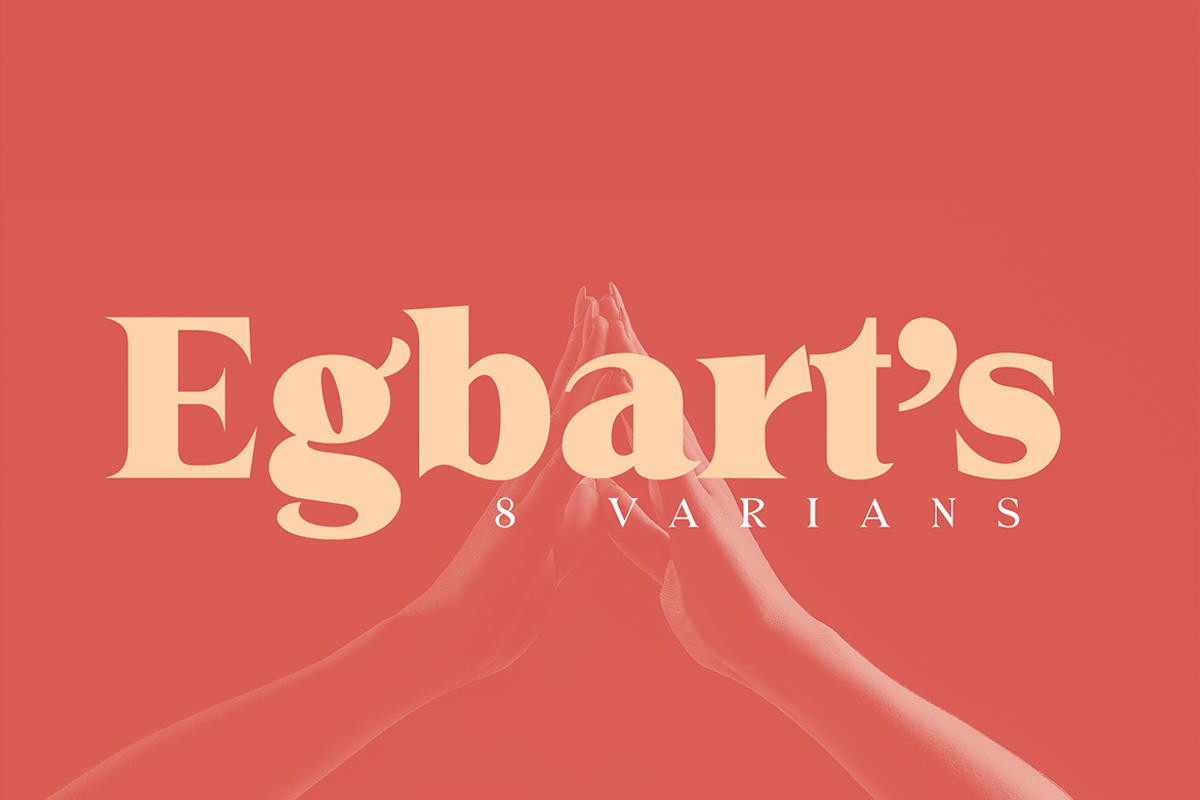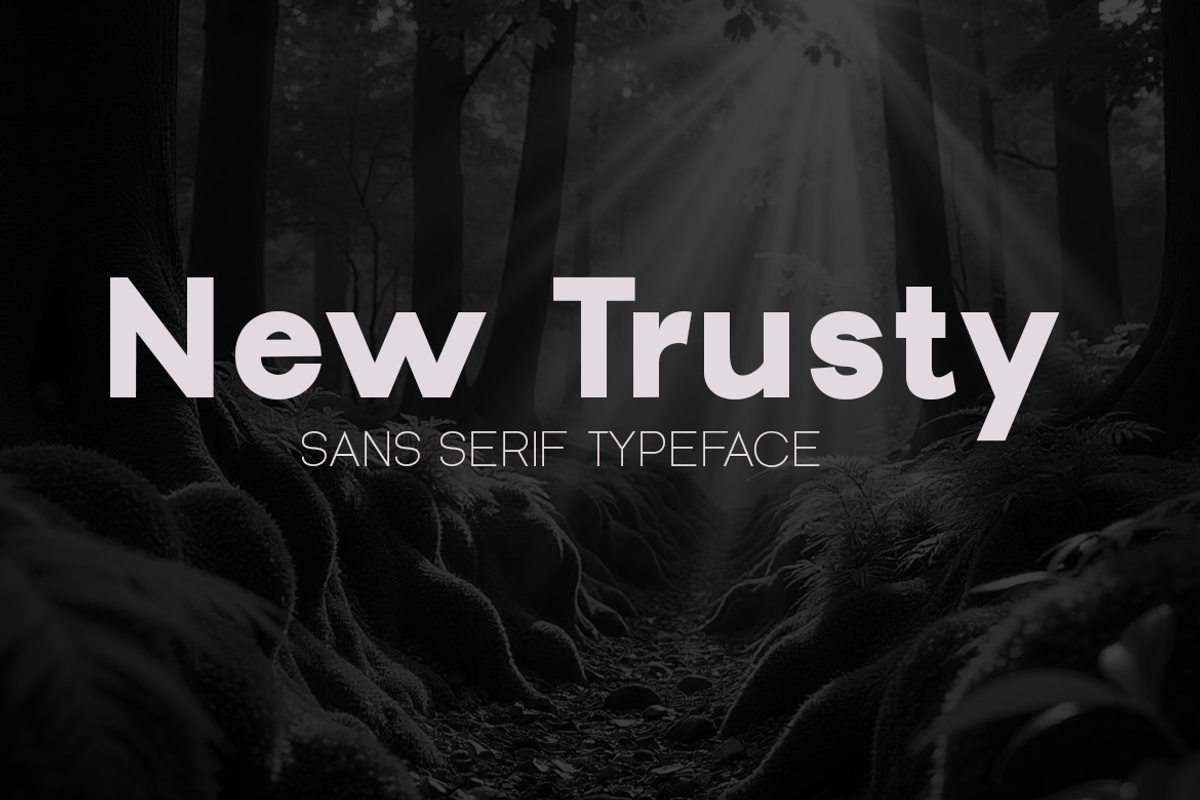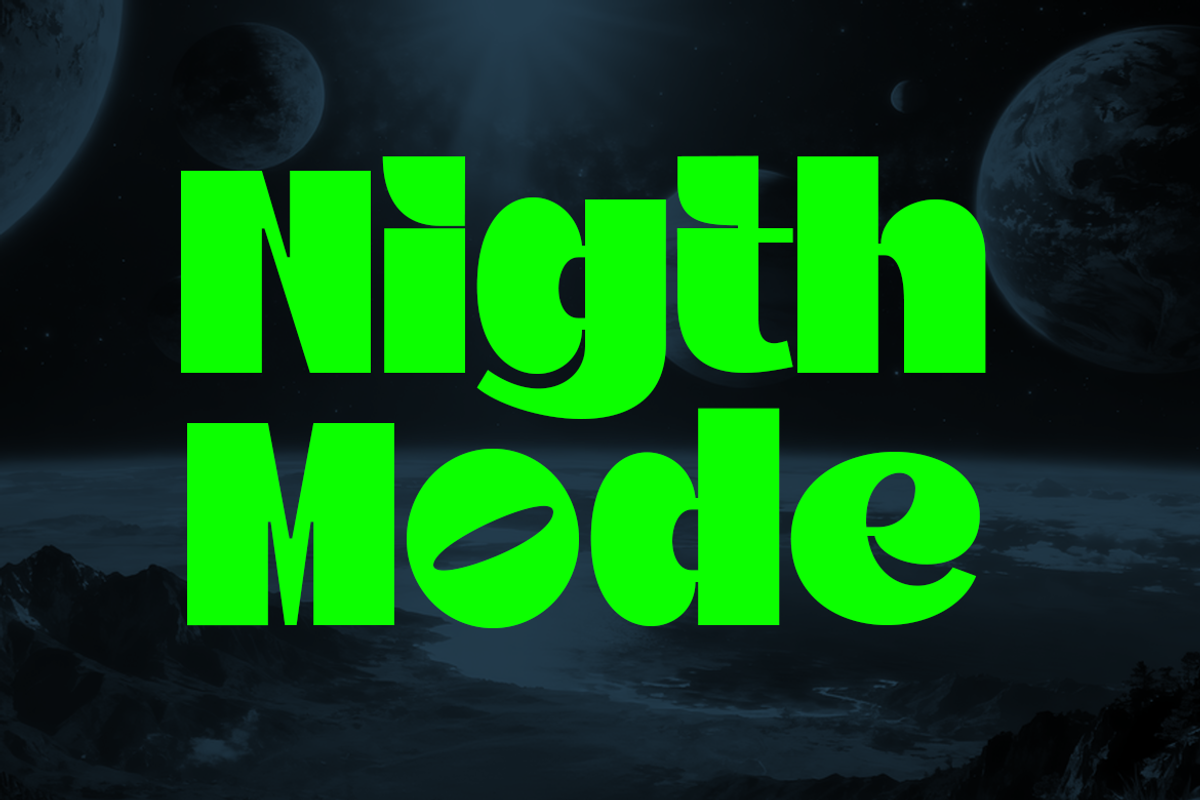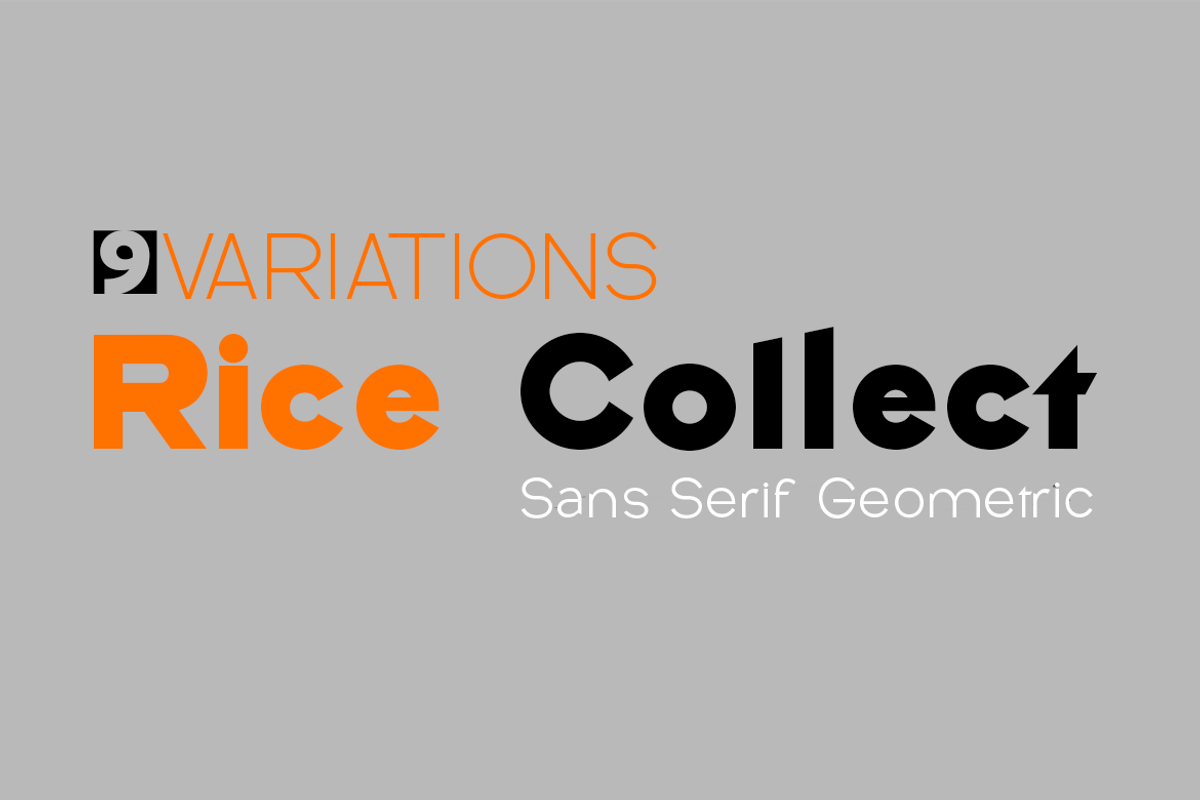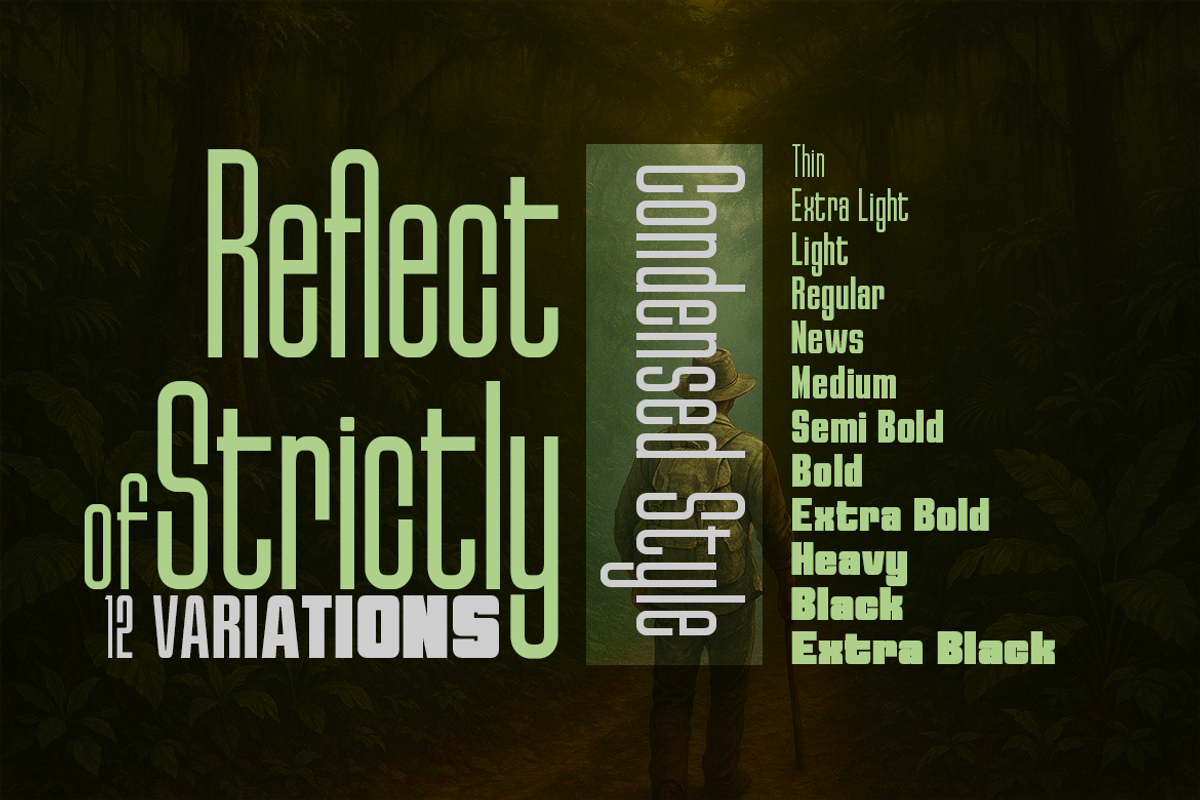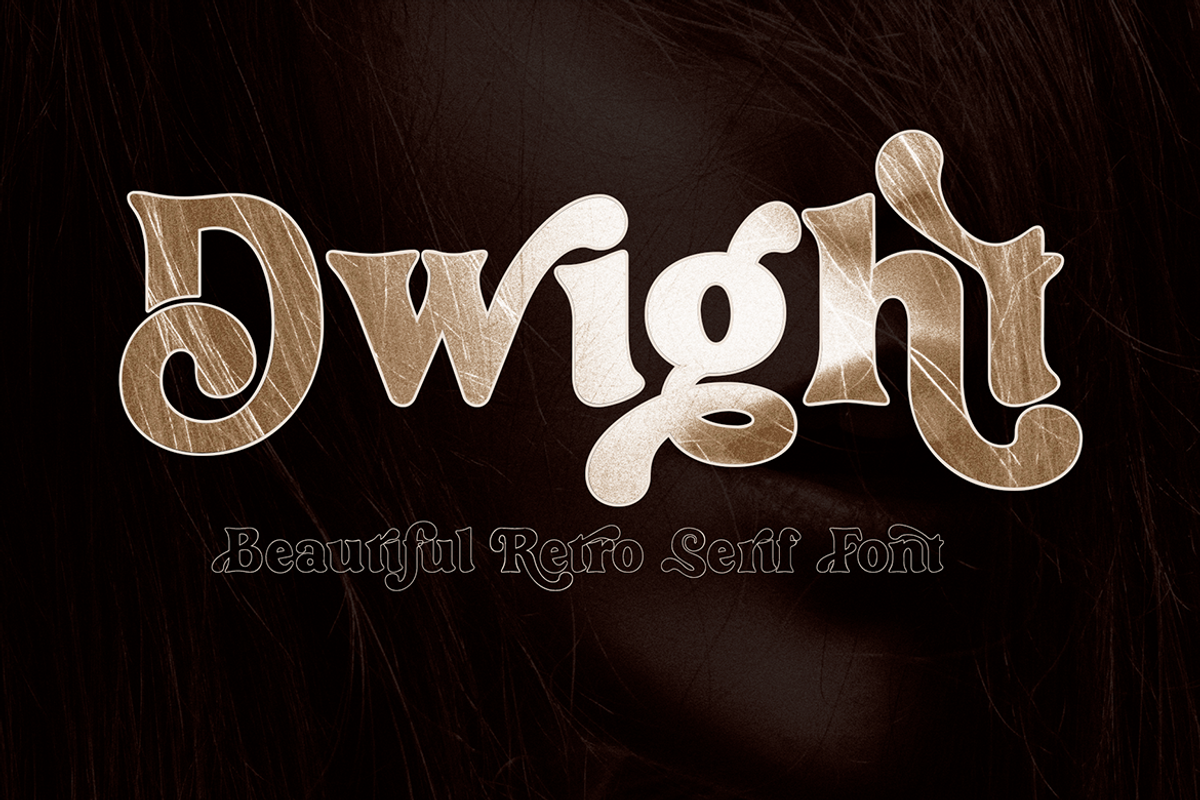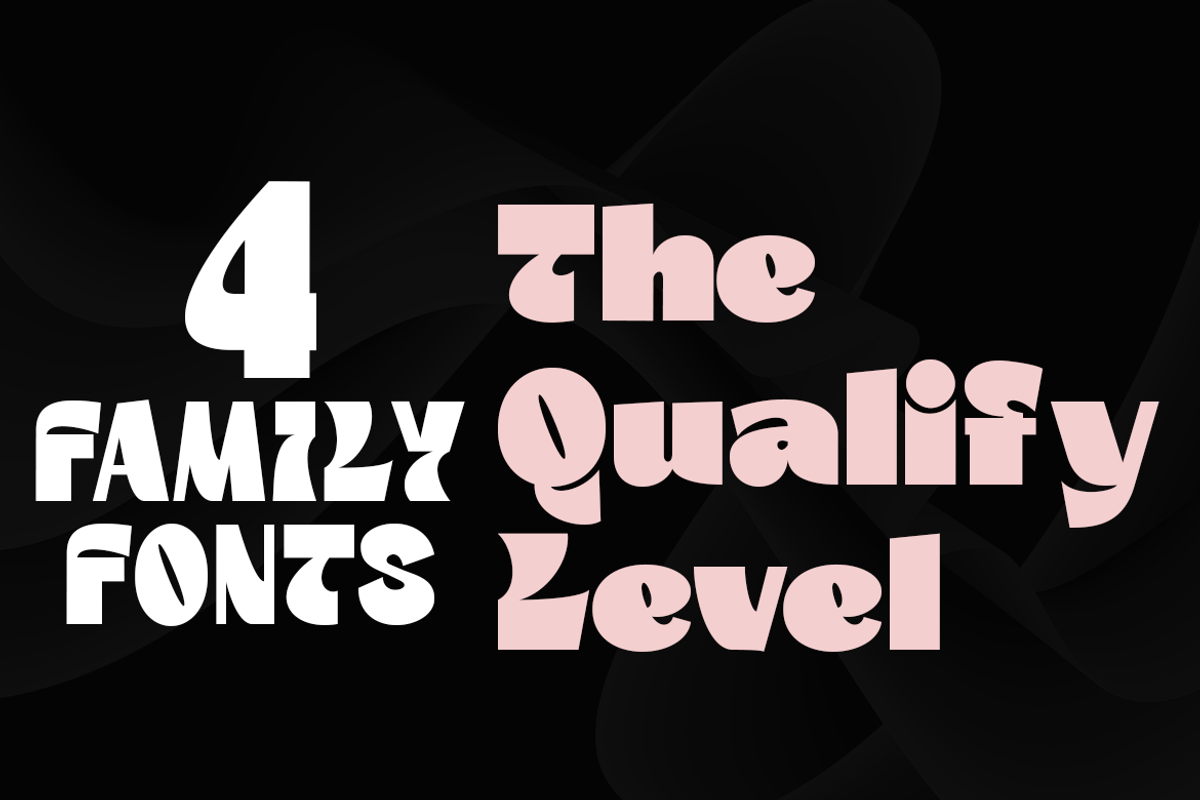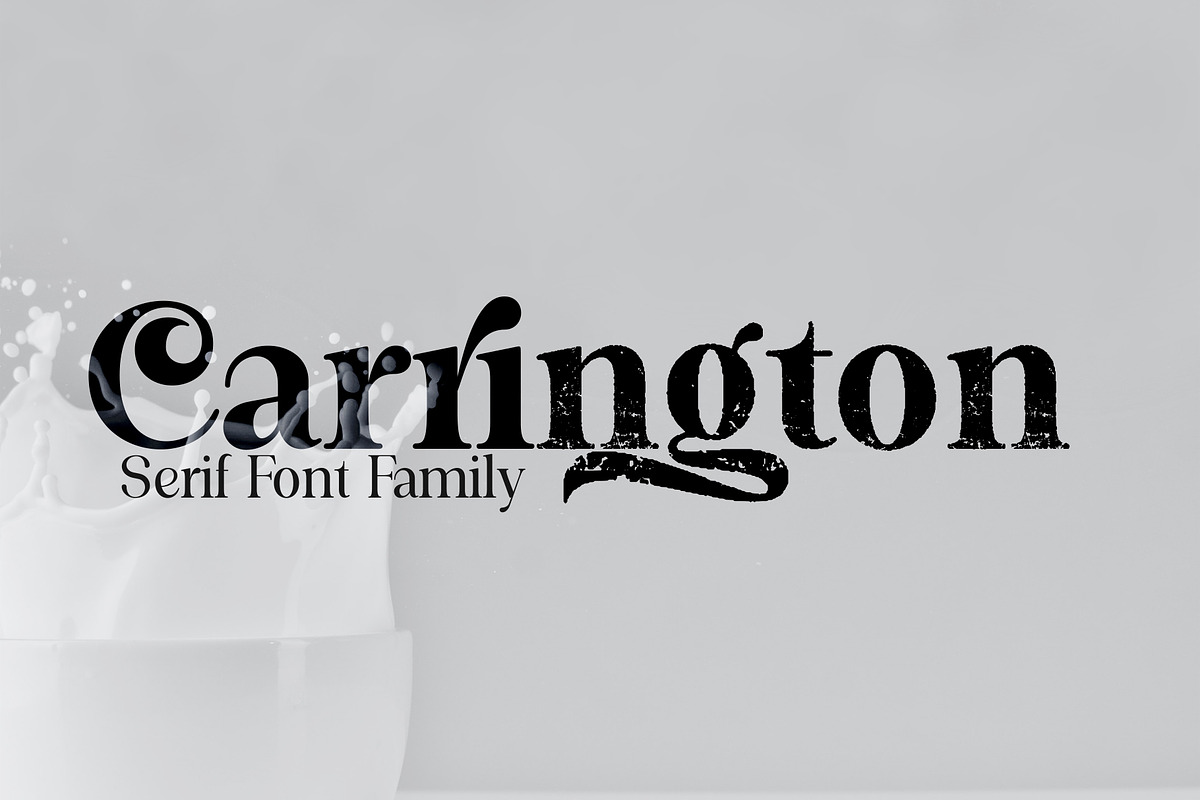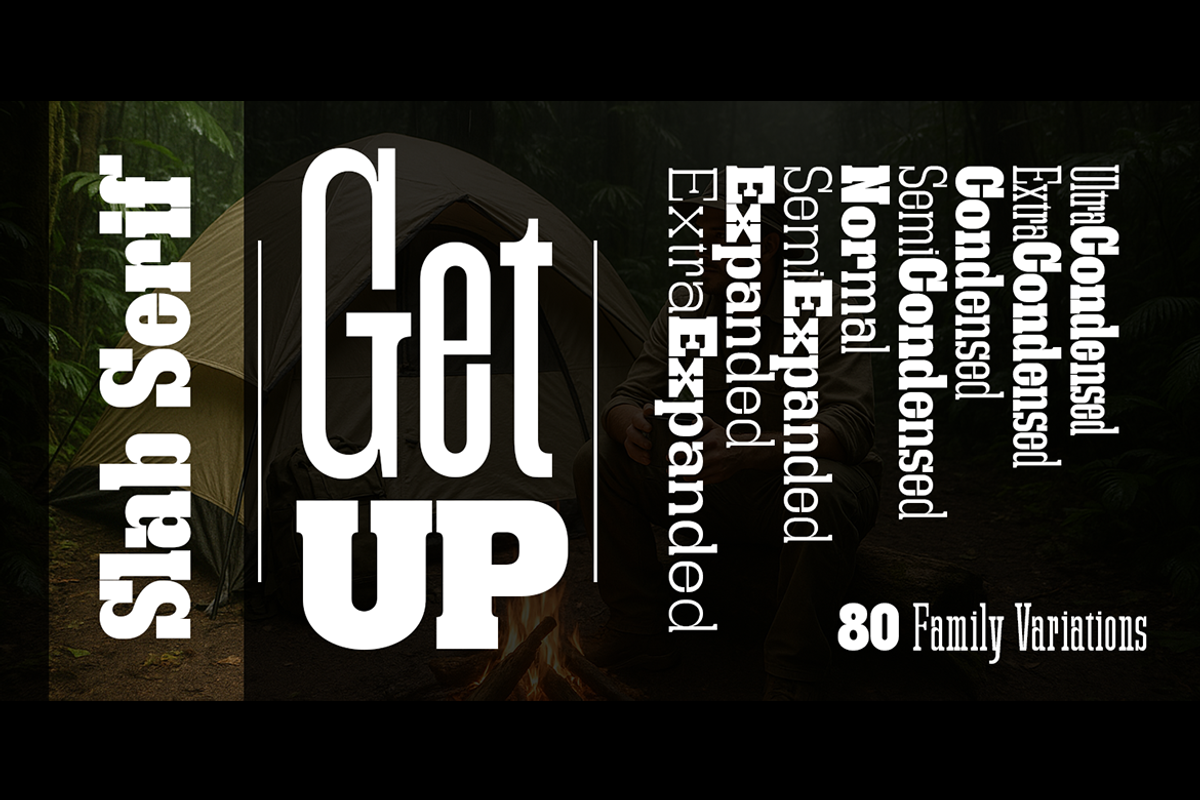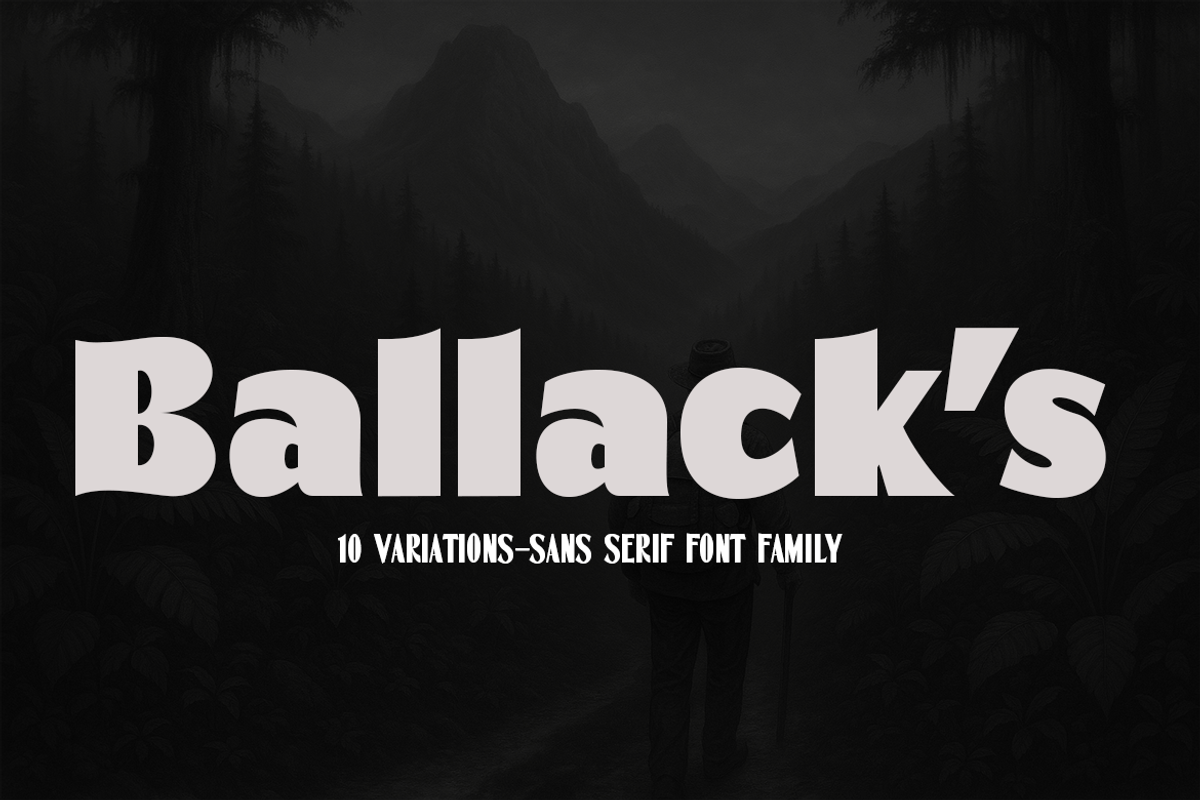
The Essential Font Collection
Font Collection
The Essential Serif & Sans
Bring timeless elegance and contemporary versatility to your design projects with Modern Classics, a curated collection of premium Serif and Sans Serif fonts designed to work beautifully across a wide range of creative applications.
Combining the refined character of classic serif typography with the clean, modern appearance of sans serif styles, this bundle gives you a flexible typographic toolkit for branding, editorial design, logos, packaging, posters, advertising, social media, websites, invitations, and more.
Each typeface is carefully crafted to provide strong visual impact while maintaining excellent readability and professional proportions. Mix and match serif and sans serif styles to create sophisticated headlines, elegant branding systems, modern layouts, and eye-catching display typography.
WHY YOU'LL LOVE IT
Modern Classics is designed to give you the best of both worlds — the sophistication and personality of serif typography combined with the simplicity and flexibility of modern sans serif fonts.
Use the fonts individually or combine different styles to build a complete and cohesive visual identity. Whether you're creating a luxury brand, editorial layout, contemporary logo, fashion campaign, or modern social media design, this collection provides plenty of creative possibilities.
Create with confidence. Build your own visual language. Make every word stand out.